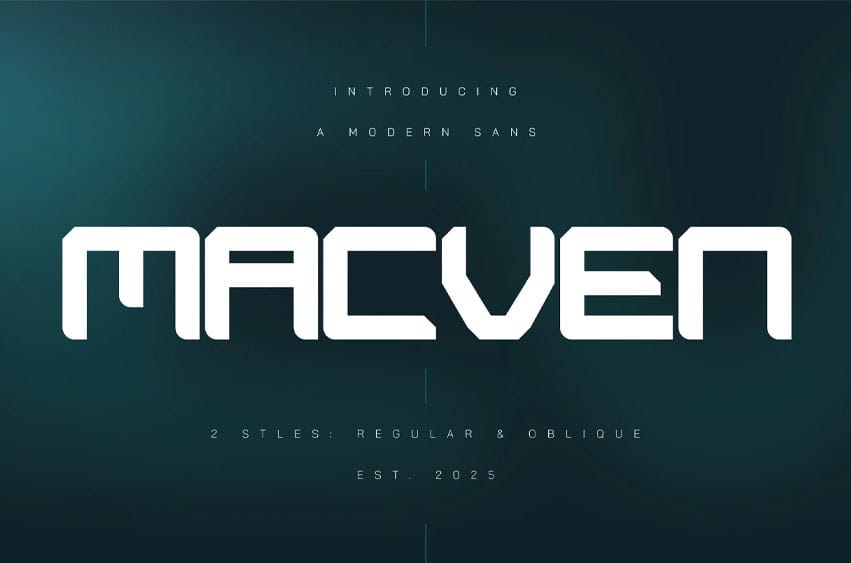
Macven Font stands out with its robust, geometric construction and modern flair. Each letter is meticulously designed with uniform thickness and sharp angles, resulting in a blocky yet refined appearance. This typeface effortlessly balances legibility with a futuristic edge, ensuring that both text and numbers exhibit a striking consistency.
The versatility of Macven makes it perfect for diverse design applications, from bold headlines and logo designs to digital interfaces and innovative branding projects. Its contemporary aesthetic, marked by a blend of minimalism and intricate angular details, provides a unique visual language that resonates with modern creative sensibilities.